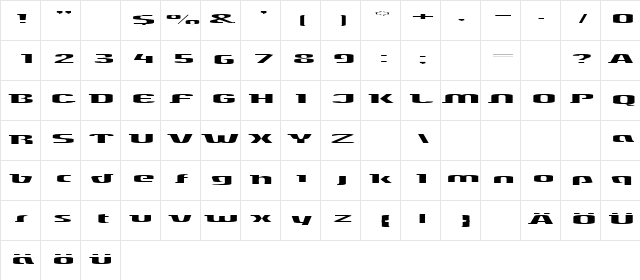
slick Regular
Design Context for slick Typeface
slick offers clean, dependable letterforms without strong stylistic allegiance, making it a practical choice for designers who need flexibility.